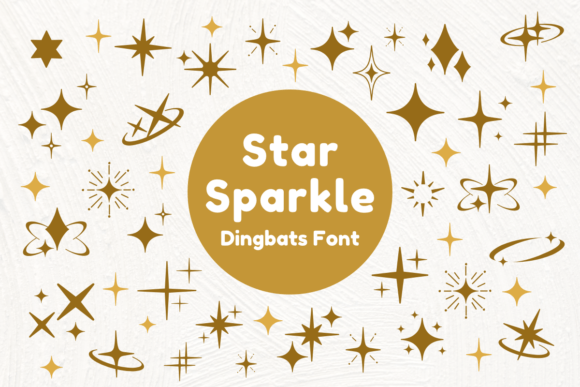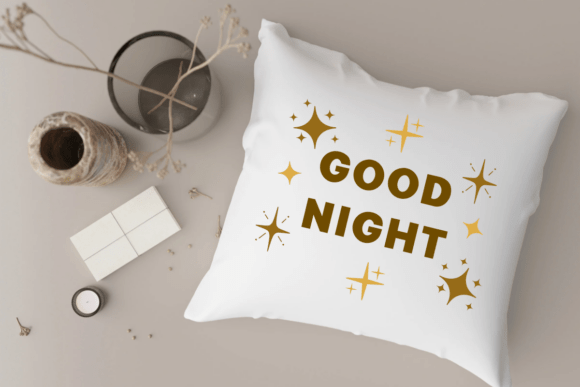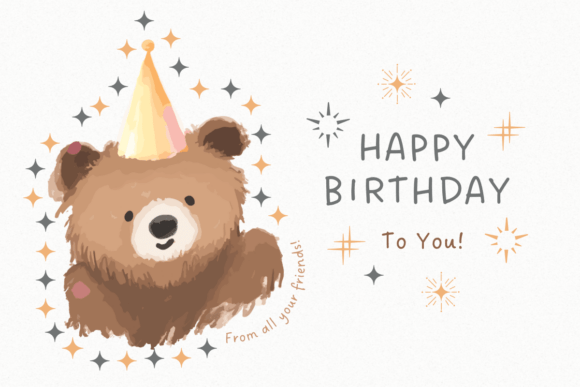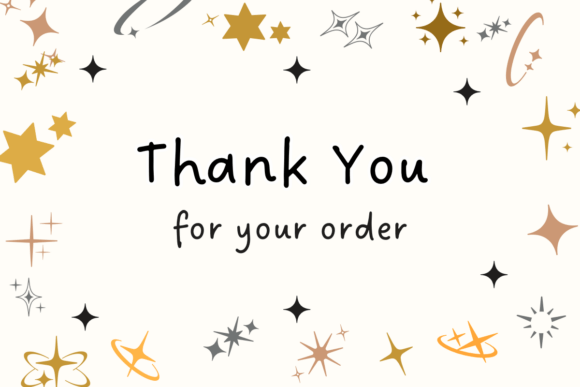
Star Sparkle Font: Cute Dingbats for Cricut & DIY Projects!
About the Star Sparkle Font
Step up your design game with Star Sparkle Font, a font that exudes confidence and style. Star Sparkle is a dingbats font with a celestial theme. This font can enhance your creative projects such as wedding invitations, DIY, crafts, decorations, logos, and many other creative ideas.
Star Sparkle Font Usage Examples
Star Sparkle Font Example